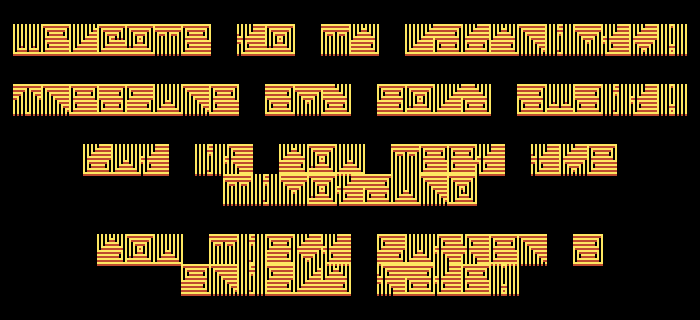
Absinthelyric Print Font
Maze
A multi-line design which is slightly reminescent of mazes/fingerprints. It's not designed to create functional mazes, but it is somewhat capable! "Absinthelyric Print" is an anagram for "Labyrinthine Script".